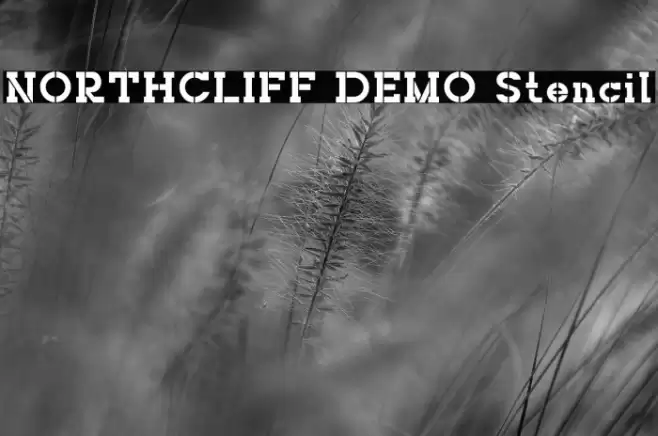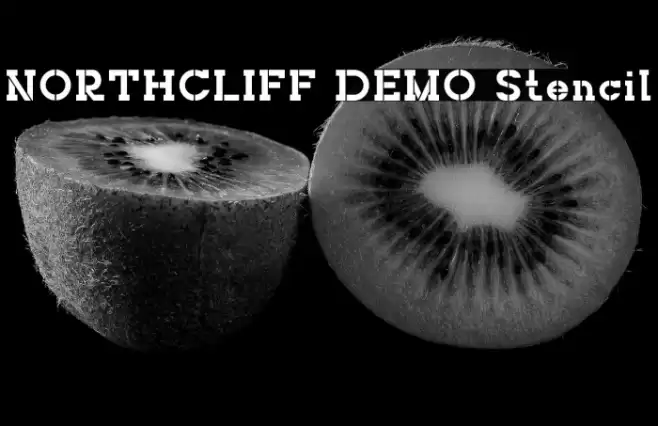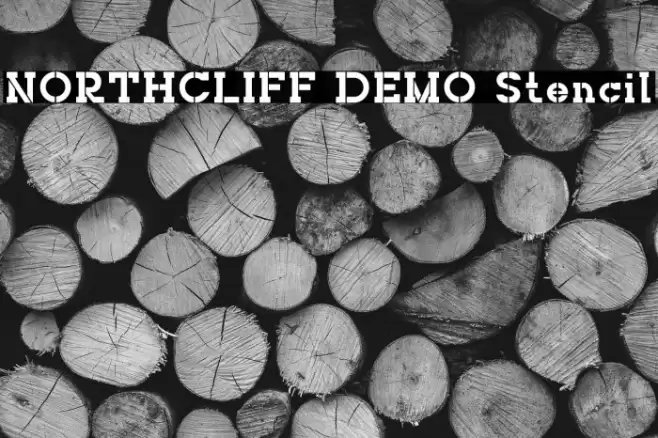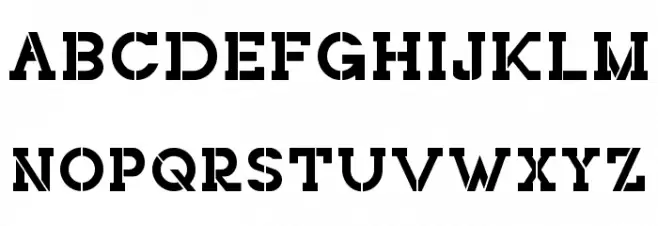
NORTHCLIFF DEMO Stencil Font
NORTHCLIFF DEMO Stencil Description
This font features a bold, stencil-like design with distinct cut-out sections in each character, giving it a modern and industrial feel. The uppercase and lowercase letters maintain a consistent style, with sharp angles and clean lines that enhance its readability. The font's geometric structure is complemented by its uniform stroke width, creating a balanced and cohesive appearance. The characters are well-spaced, ensuring clarity and legibility even at smaller sizes. This font's unique style makes it stand out, making it suitable for a variety of creative applications.
A bold, stencil-style font with geometric shapes and clean lines from Regular fonts.
- Proposed Projects: Ideal for branding, posters, signage, and any project requiring a modern, industrial look.